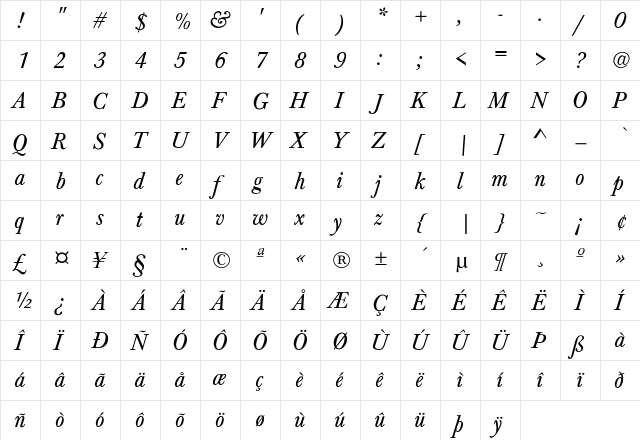
Baskerville-Normal-Italic Regular
Design Context for Baskerville-Normal-Italic Typeface
Baskerville-Normal-Italic takes a measured approach to typography — its balanced proportions and neutral character make it a reliable workhorse for both digital and print work. The dynamic lean of this cut emphasises speed and emphasis in any layout.
Pro Tip: Use Baskerville-Normal-Italic for emphasis, pull quotes, and subheadings where its slanted energy can add rhythm to the layout.